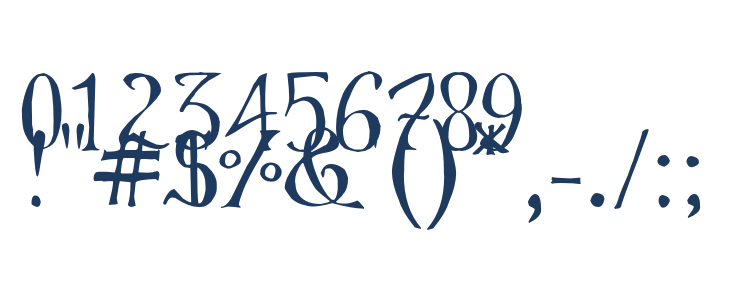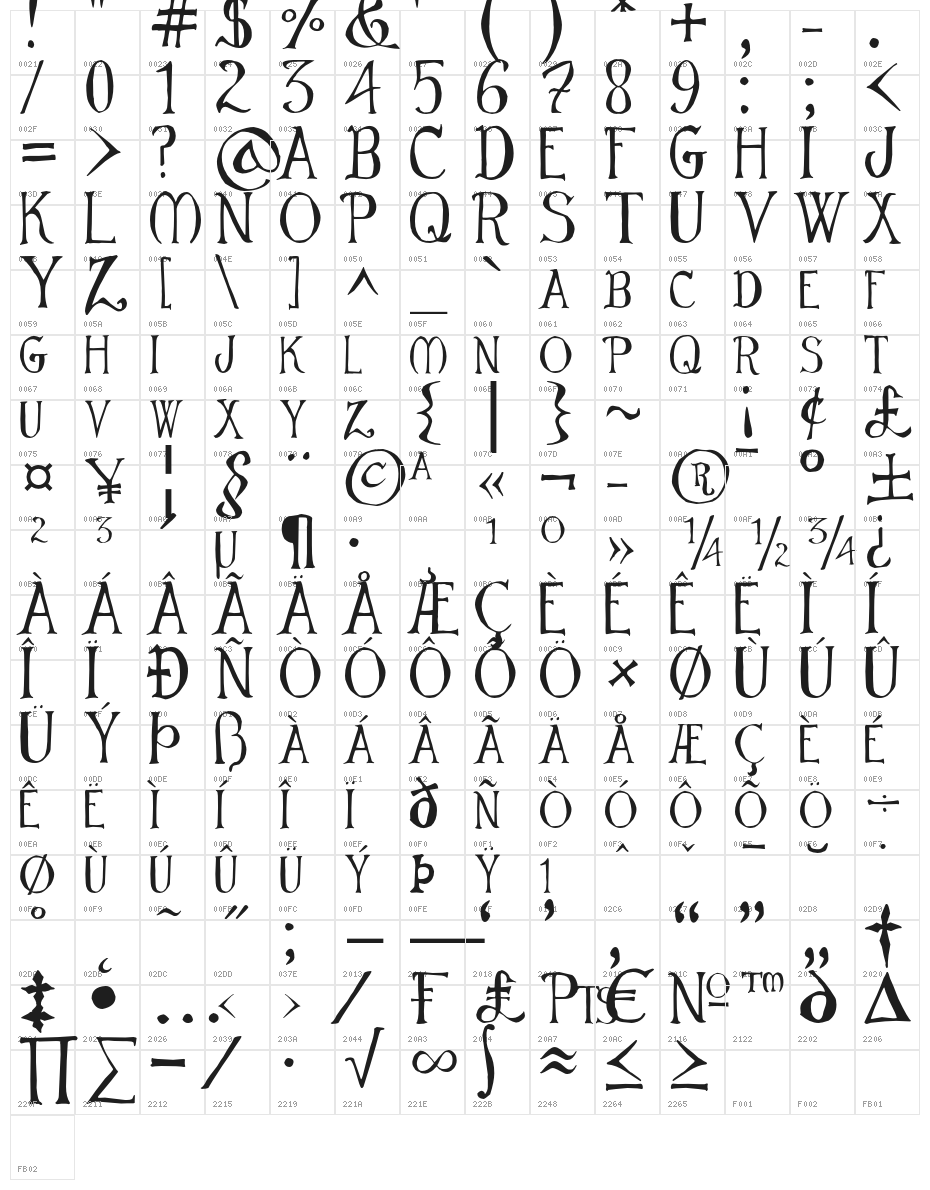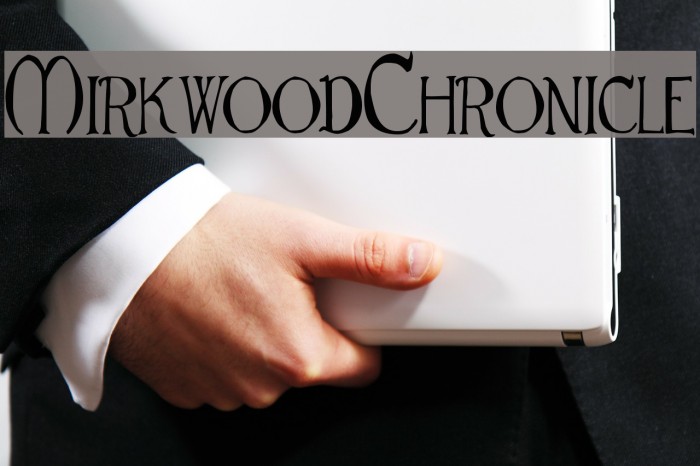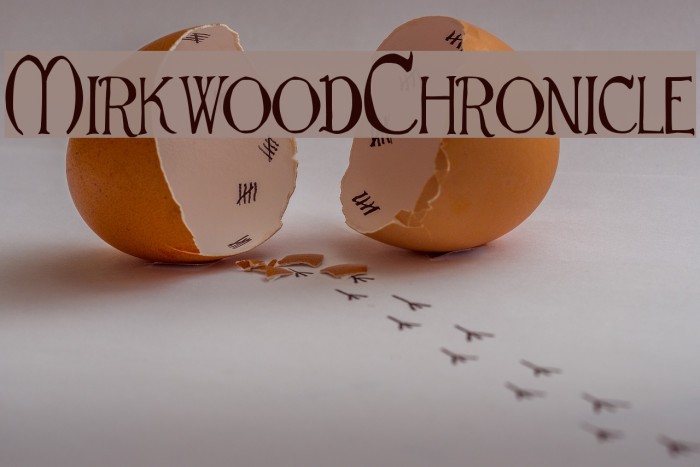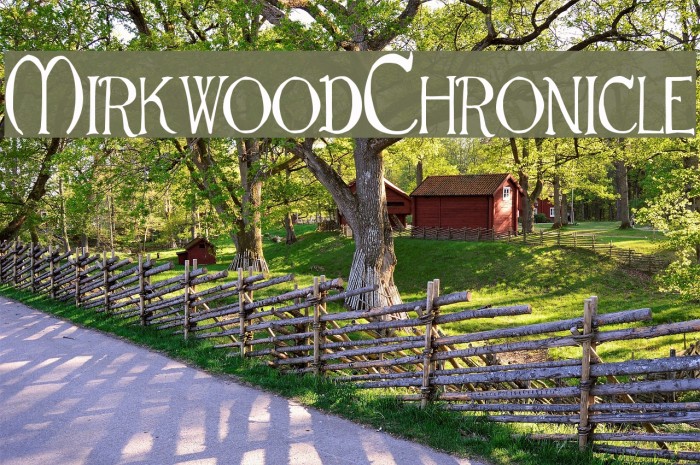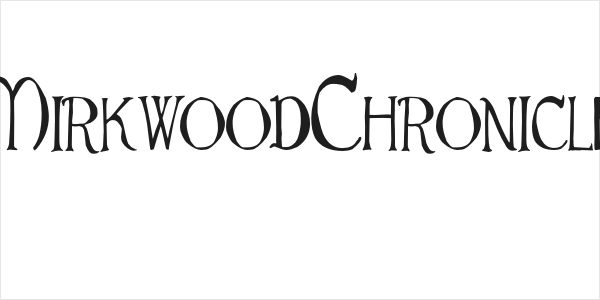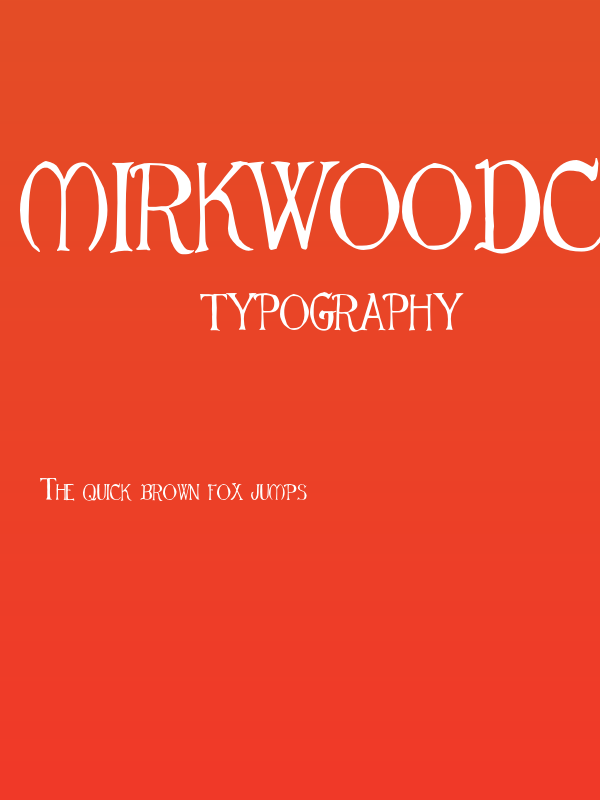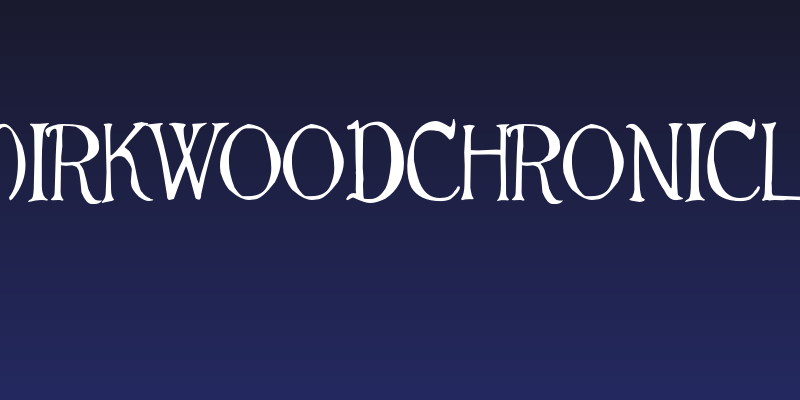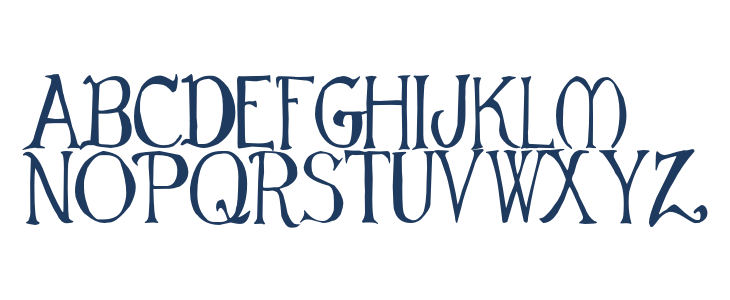
MirkwoodChronicle Font
MirkwoodChronicle Description
This font exudes a mystical and enchanting aura, reminiscent of ancient scripts and fantasy realms. The characters are elegantly elongated with a slight flourish, giving them a whimsical yet sophisticated appearance. The uppercase letters are bold and commanding, while the lowercase letters maintain a consistent style that complements the overall design. The numerals are distinct and easily readable, with a unique flair that adds to the font's charm. Special characters are creatively designed, enhancing the font's versatility for various uses. The strokes are moderately thick, providing a balanced contrast that ensures legibility without sacrificing style.
| Overall Style | Fantasy, Enchanting, Whimsical |
| Use Case | Headlines, Logos, Book Covers |
| Proposed Projects | Ideal for fantasy-themed projects, book covers, movie titles, and creative branding. |